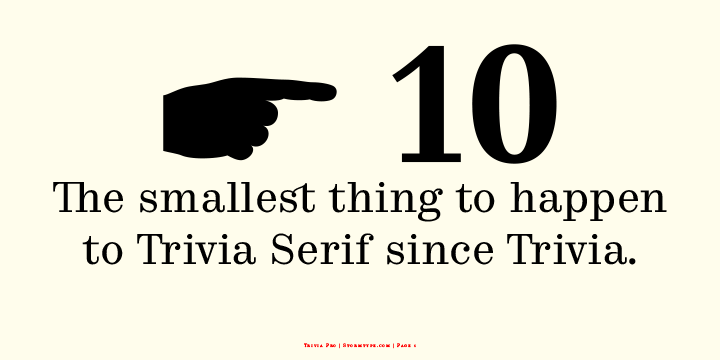
Trivia Serif 10 Font is ideal for quiz game interfaces, educational trivia materials, knowledge competition graphics, game show productions, brain training app designs, and intellectual entertainment venue branding.
Trivia Serif 10 Font is exciting because it embodies intellectual curiosity and knowledge discovery, delivering a scholarly typeface that captures the excitement of learning, mental challenges, and the satisfying pursuit of facts and information.
The Trivia Serif 10 Font family includes knowledge variations: Trivia Serif 10 Light, Trivia Serif 10 Regular, Trivia Serif 10 Bold, quiz alternates, and decorative elements that enhance the font's educational and competitive character.
Test your knowledge with Trivia Serif 10 Font Free Download, an intellectually crafted typeface that brings quiz competition excitement and educational engagement to your most stimulating design projects. This scholarly font excels in creating memorable branding for trivia night venues, educational game companies, quiz app developers, and knowledge-based entertainment platforms that celebrate learning and intellectual competition. The thoughtfully designed letterforms feature readable serif construction with subtle academic details that communicate intelligence, accuracy, and educational authority while ensuring excellent legibility across all quiz and educational applications. Perfect for trivia question cards, educational game boards, knowledge assessment materials, and intellectual competition programs that need to convey scholarly credibility and engaging entertainment, this font connects with curious minds who enjoy testing their knowledge and learning new facts. Each character challenges with intellectual precision, making every trivia question feel like an exciting opportunity to demonstrate knowledge and discover fascinating information. Trivia Serif 10 Font transforms educational communications into engaging challenges that make learning fun while inspiring audiences to expand their knowledge and appreciate the joy of intellectual discovery and friendly competition.